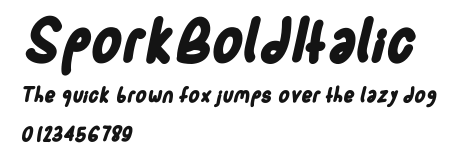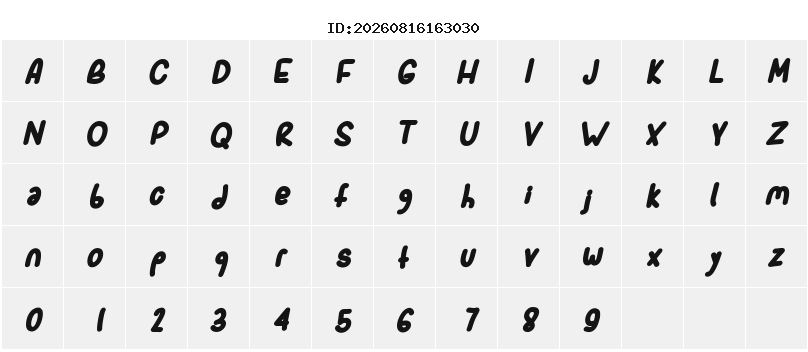
SporkBoldItalic Preview
• Font Name: SporkBoldItalic
• Font Style: BoldItalic
• Full Font Name: SporkBoldItalic
• PostScript Name: SporkBoldItalic
About SporkBoldItalic.ttf
SporkBoldItalic.ttf is a modern, elegant sans-serif font designed for ultimate readability and visual harmony. Perfect for branding, headlines, web design, and print materials.